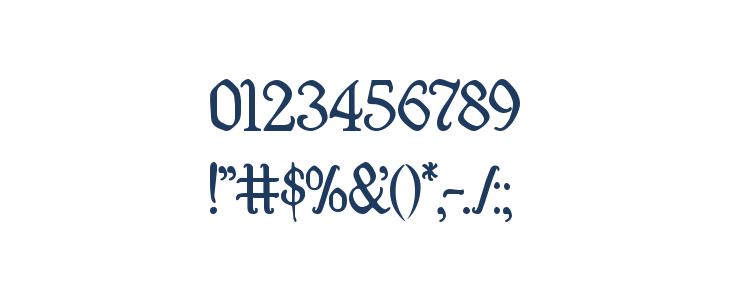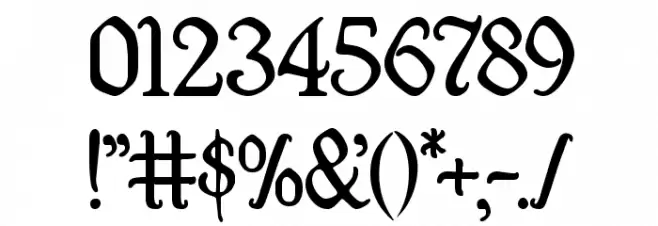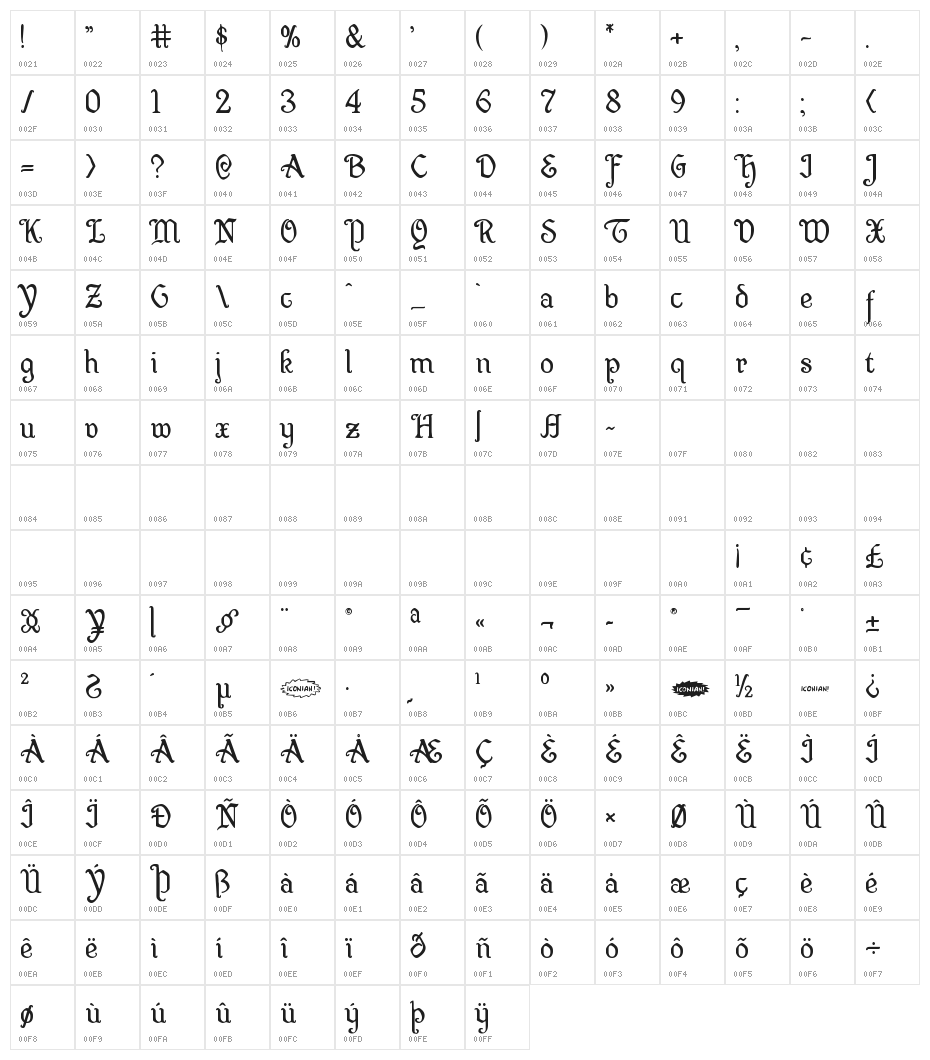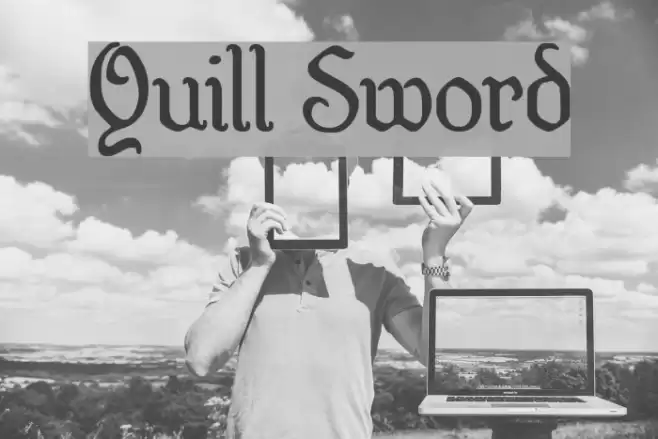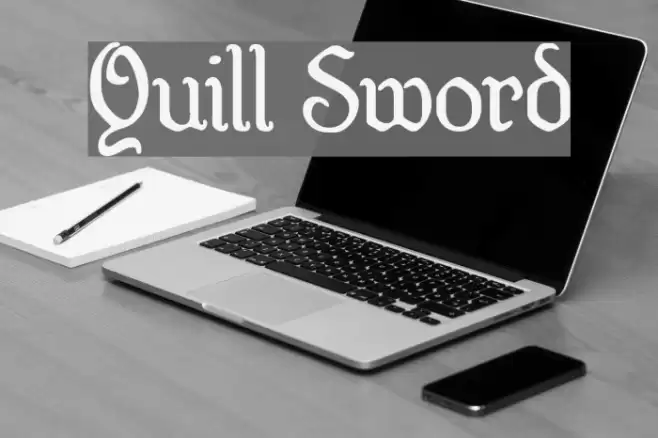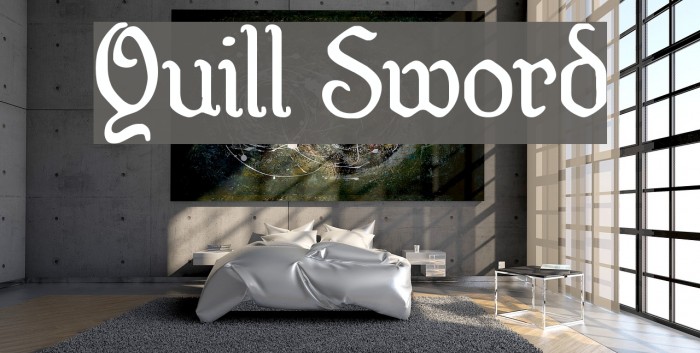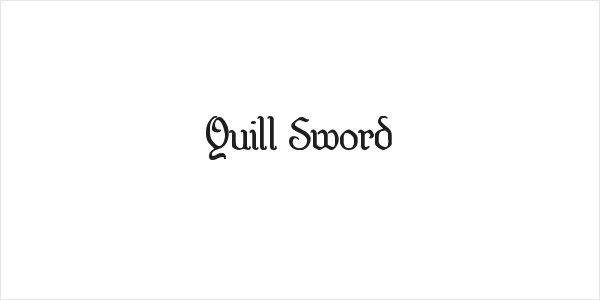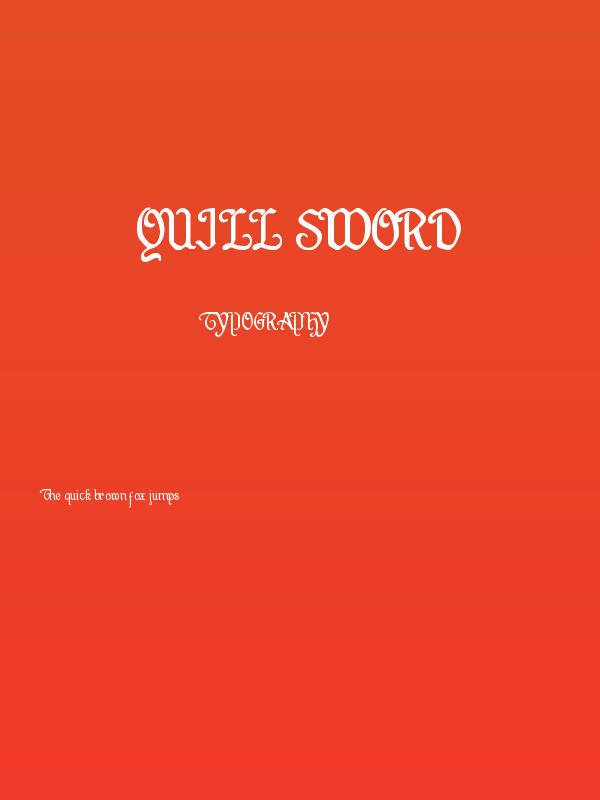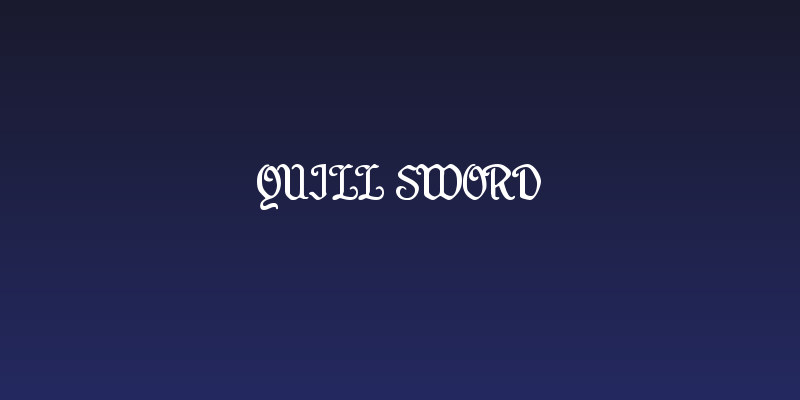
Quill Sword Font
Quill Sword Description
This font features a decorative and ornate style reminiscent of medieval script. The characters are embellished with intricate curves and flourishes, giving them a unique and artistic appearance. The uppercase letters are bold and commanding, while the lowercase letters maintain a consistent style with slightly less emphasis. Numbers and special characters are designed to match the overall aesthetic, making them suitable for themed projects. The font's distinctiveness makes it ideal for creating a vintage or historical feel in design work.
| Proposed Projects | Ideal for fantasy-themed projects, historical documents, invitations, and decorative headings. |